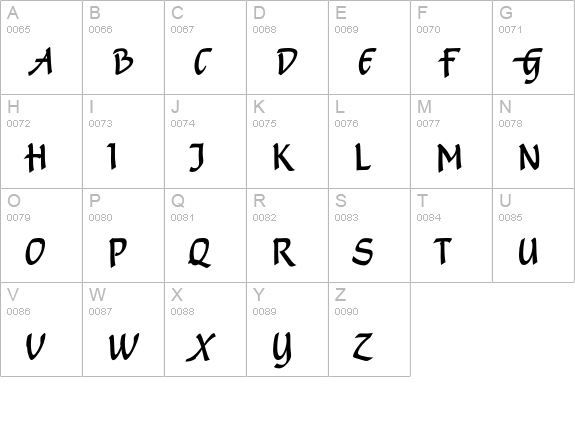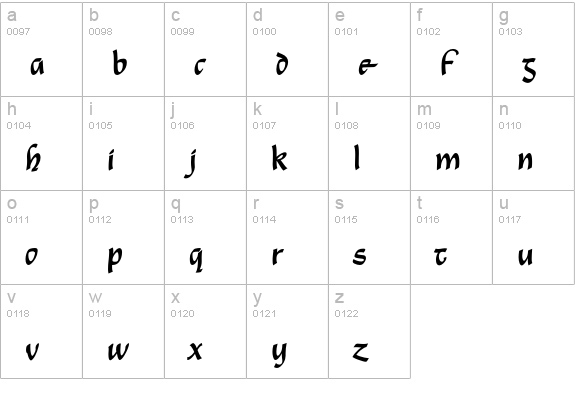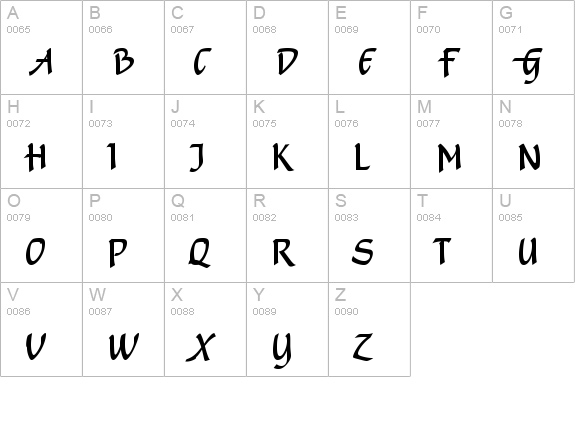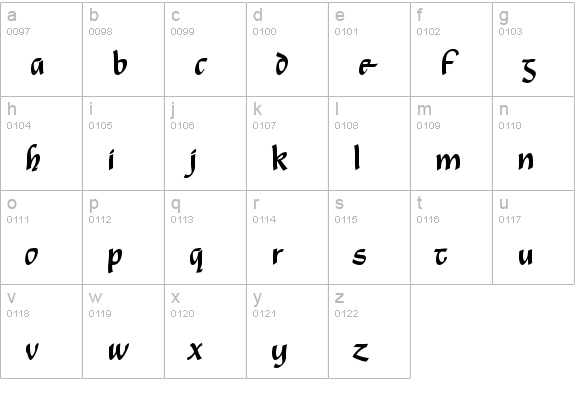
ShamrockEF-AlternateOne Font Details
ShamrockEF-AlternateOne is a stunning and versatile font that will add a touch of elegance and sophistication to any design project. With its intricate details and graceful curves, this font exudes a sense of creativity and originality. Designed with precision and care, ShamrockEF-AlternateOne is perfect for a wide range of applications. Whether you're designing a logo, creating a poster, or crafting a beautiful invitation, this font will elevate your design to new heights. One of the best things about ShamrockEF-AlternateOne is that it is completely free. That's right, you can download this font for absolutely no cost at FontsMarket.com. This means that you can use this font in your personal or commercial projects without any restrictions or limitations. With its extensive character set, ShamrockEF-AlternateOne offers a variety of options for customization. Whether you want to add a touch of elegance with its stylish uppercase letters or make a statement with its unique alternate glyphs, this font has got you covered. The versatility of ShamrockEF-AlternateOne extends to its compatibility with various design software and applications. Whether you're working in Adobe Photoshop, Illustrator, or any other design program, you can easily integrate this font into your workflow. Don't miss out on the opportunity to enhance your designs with ShamrockEF-AlternateOne. Download it for free at FontsMarket.com and unlock a world of possibilities. Whether you're a seasoned designer or just starting out, this font will surely become an invaluable addition to your font library.